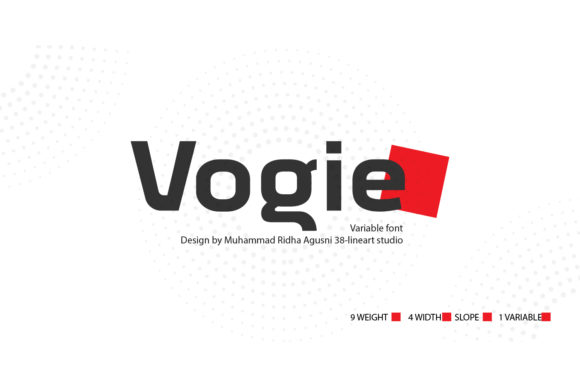
Introducing Vogie Font, a masterpiece that defies the boundaries of conventional typography. Experience the thrill of modern calligraphy and ignite your creative spirit. The sans serif design transcends ordinary fonts, captivating you with its revolutionary curves and dynamic angles. Unveil the essence of elegance and carve your artistic vision into reality with Vogie Font.
Step into a world where design knows no limits. Vogie Font opens up endless possibilities for your projects. Whether you're creating logos that exude professionalism, crafting eye-catching headlines, or designing stunning social media graphics, Vogie Font has your back. Its versatility is an artist's dream, seamlessly adapting to any medium you choose.
Designed meticulously by the ingenious minds at 38.lineart, Vogie Font is a testament to innovation. Its unconventional yet alluring letterforms ignite creativity, transforming your concepts into masterpieces. Vogie Font is your gateway to a world of boundless imagination, where ideas take flight and inspiration flows freely.
Whether you're an established designer or just starting your artistic journey, Vogie Font is your perfect companion. Its intuitive design and ease of use make it accessible to both experienced professionals and aspiring creatives. Let Vogie Font be your muse, guiding you through the world of typography with confidence and poise.
Don't settle for ordinary, embrace the extraordinary with Vogie Font. Harness its power and watch your creations come alive with vibrancy and grace. Discover the limitless boundaries of creativity and take your designs to new heights. Make Vogie Font your ultimate design weapon and unlock the full potential of your imagination.